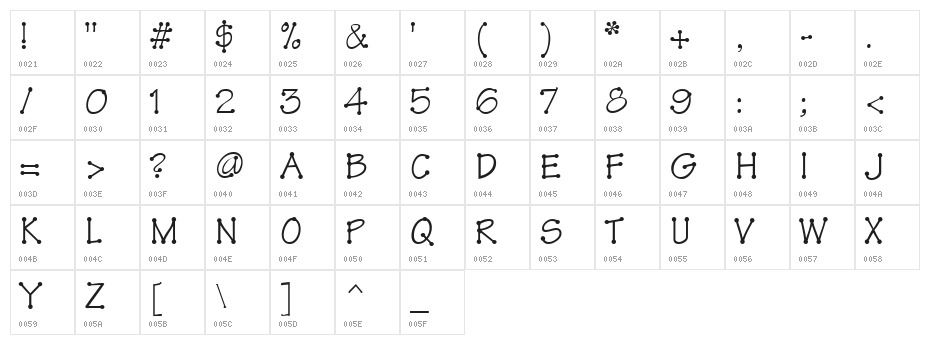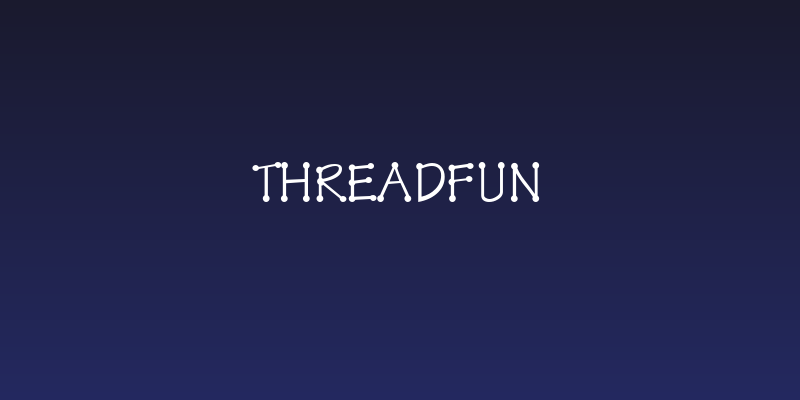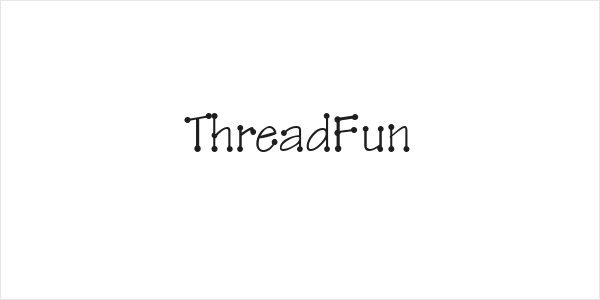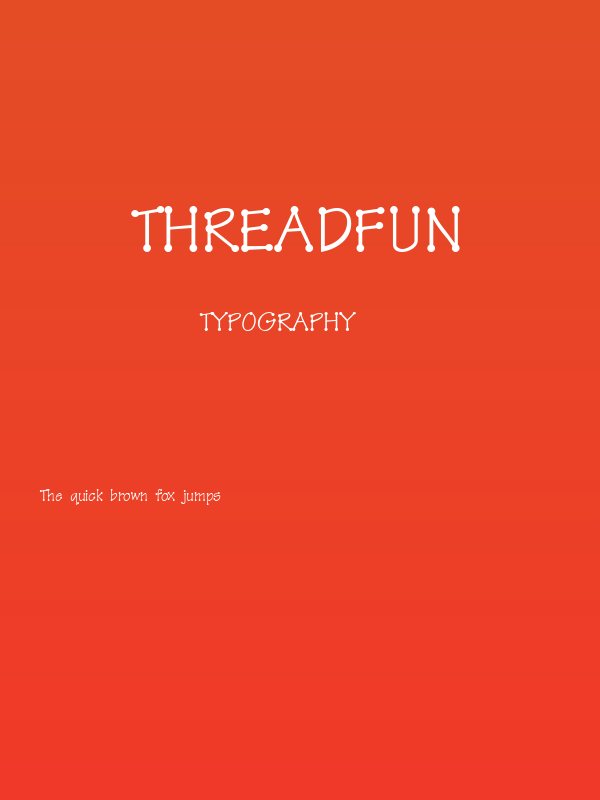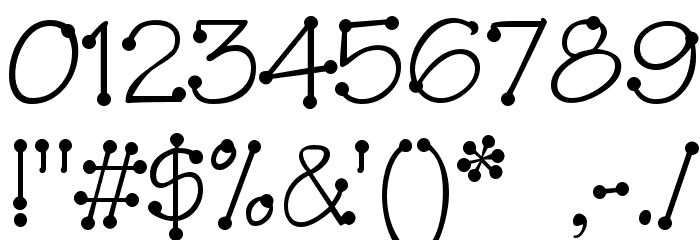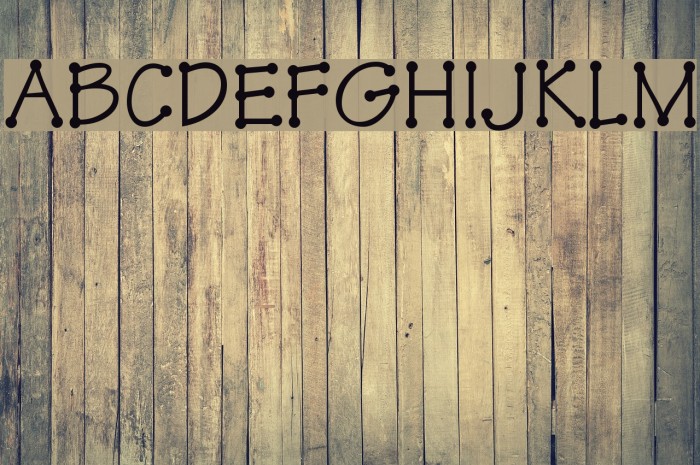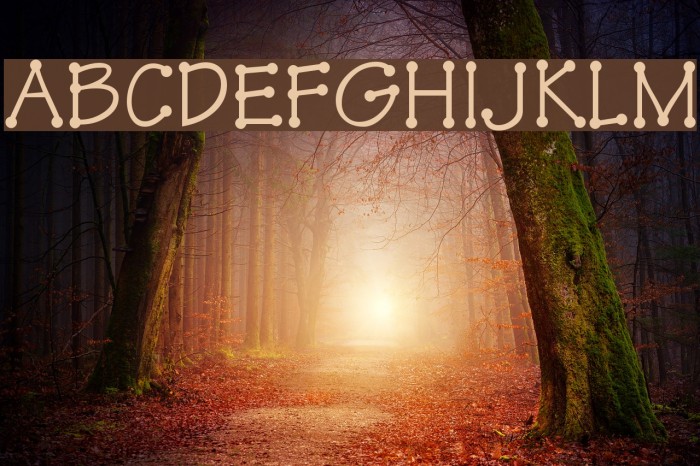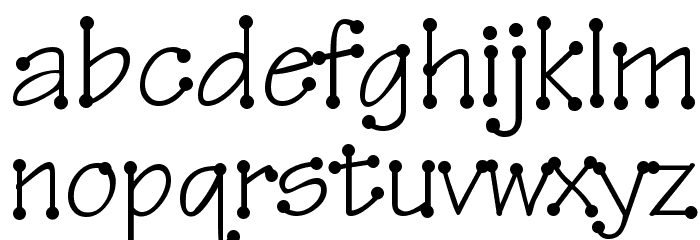
ThreadFun Font
ThreadFun Description
This playful and whimsical font features a unique design where each character is connected by a series of dots, resembling a string of beads or a playful thread. The uppercase and lowercase letters maintain a consistent style, with rounded edges and a uniform stroke width that gives the font a cohesive look. The numbers and special characters follow the same design principles, ensuring a harmonious appearance across all glyphs. This font's distinctive style makes it stand out, offering a creative and fun aesthetic that can add a touch of personality to any project.